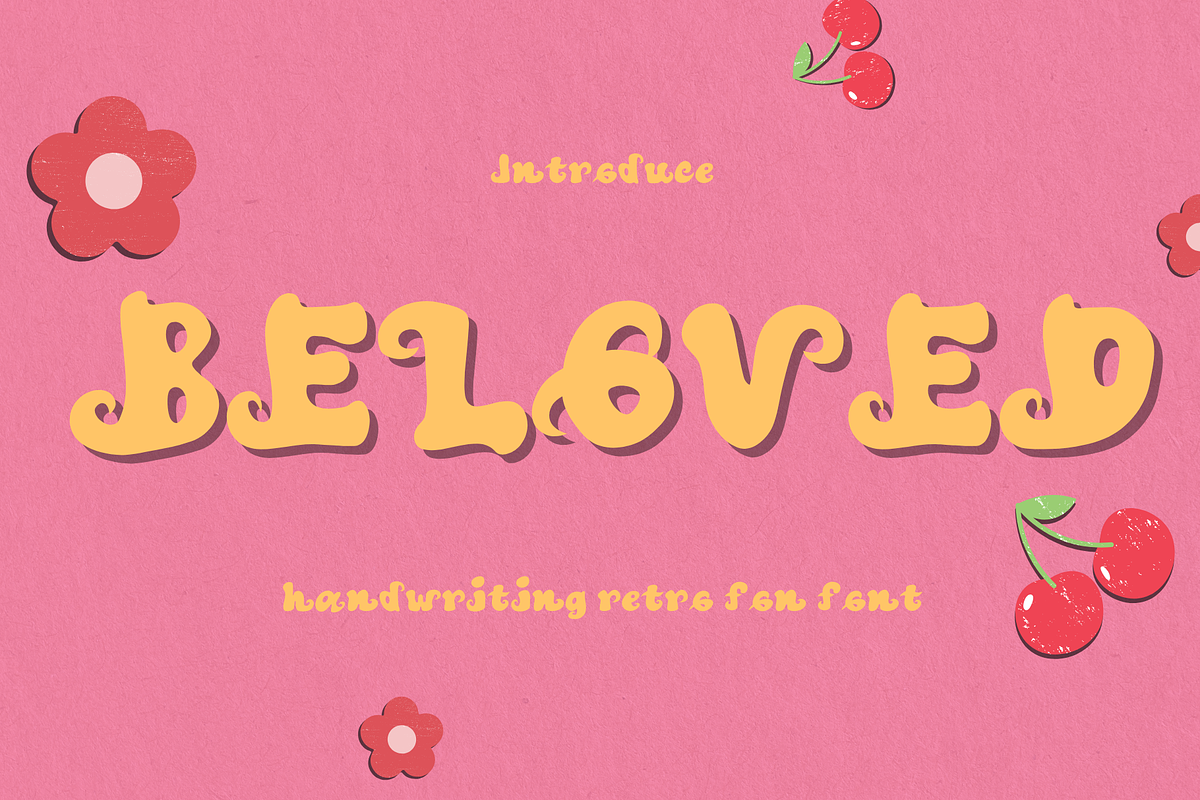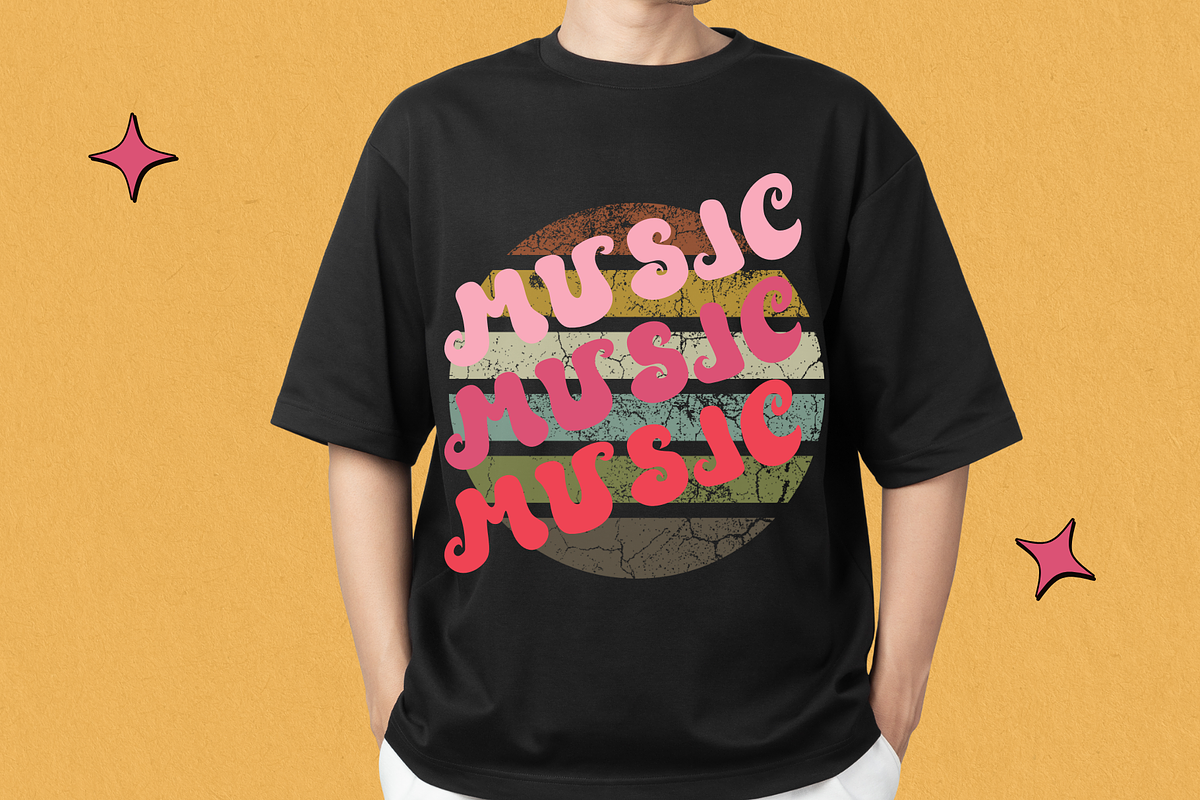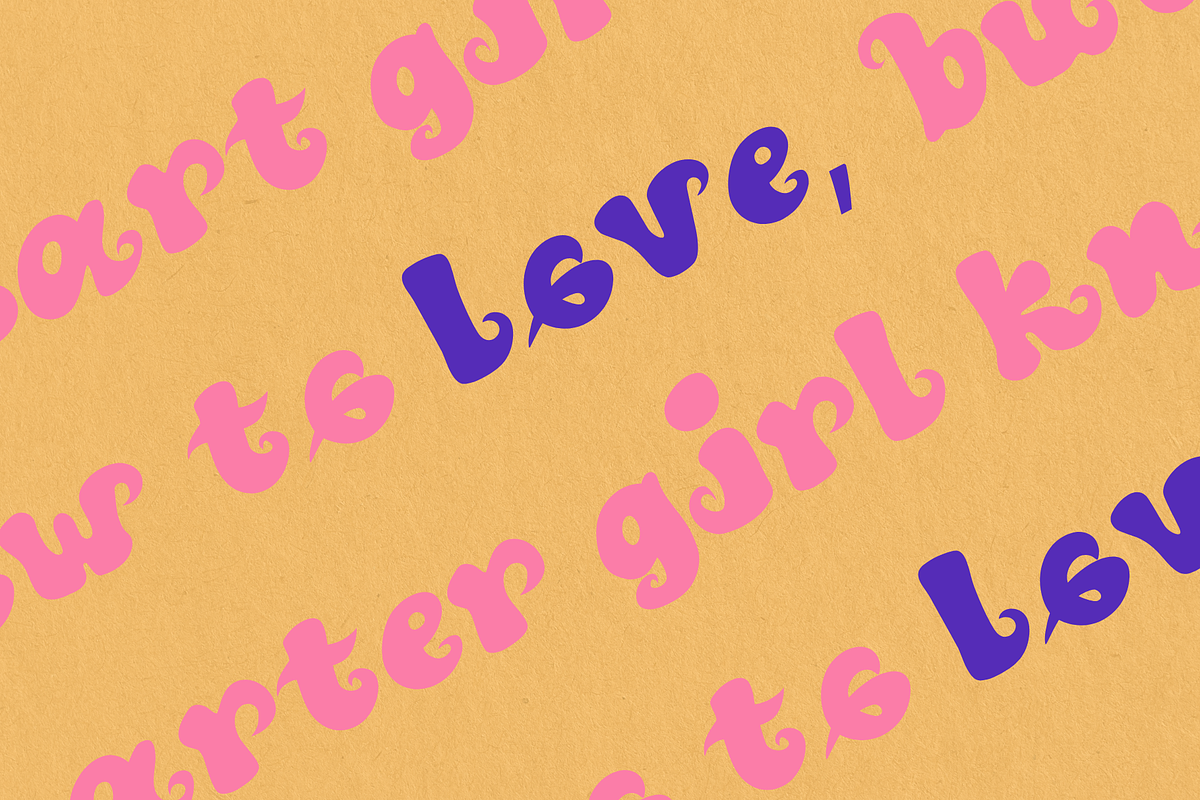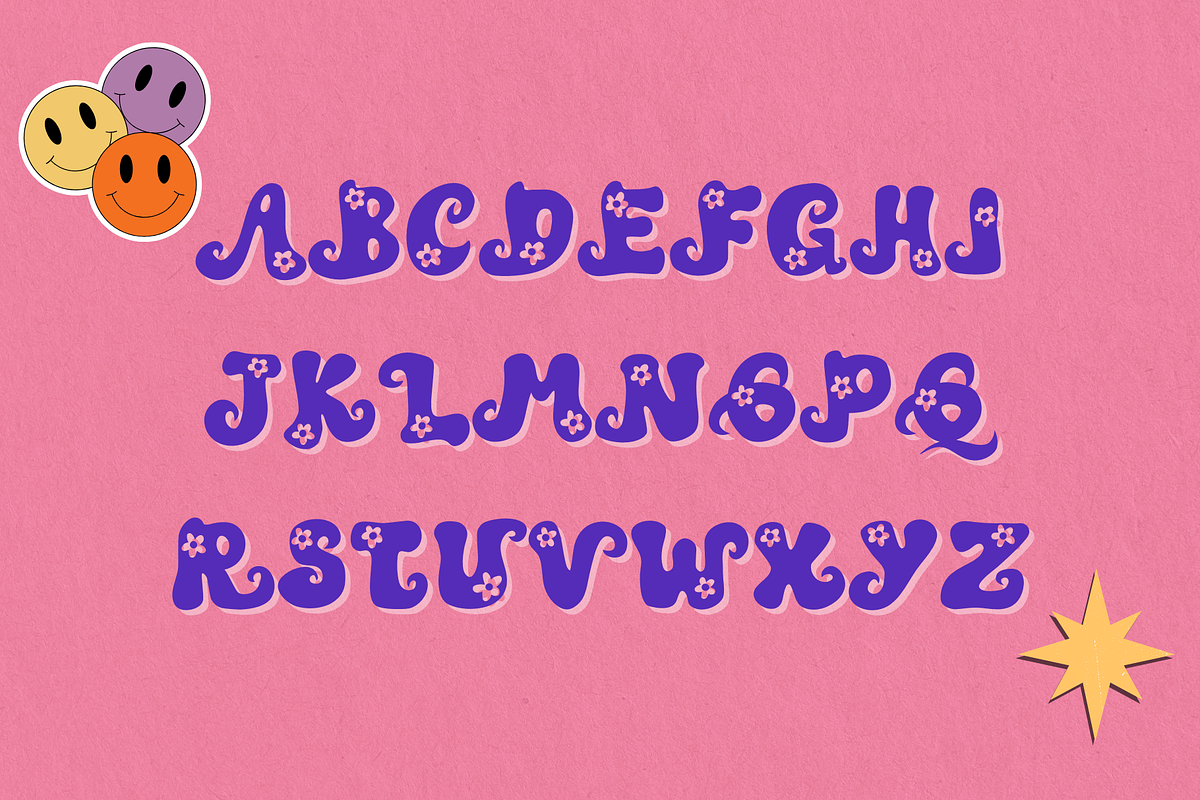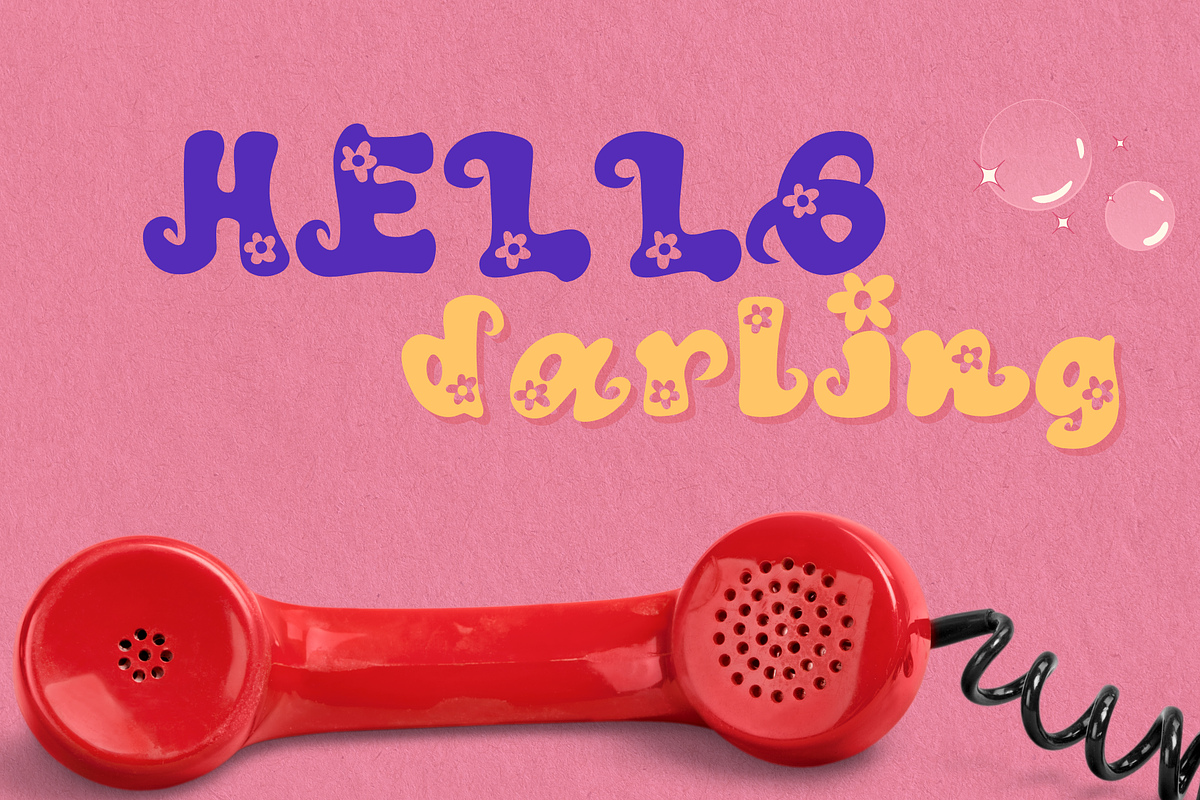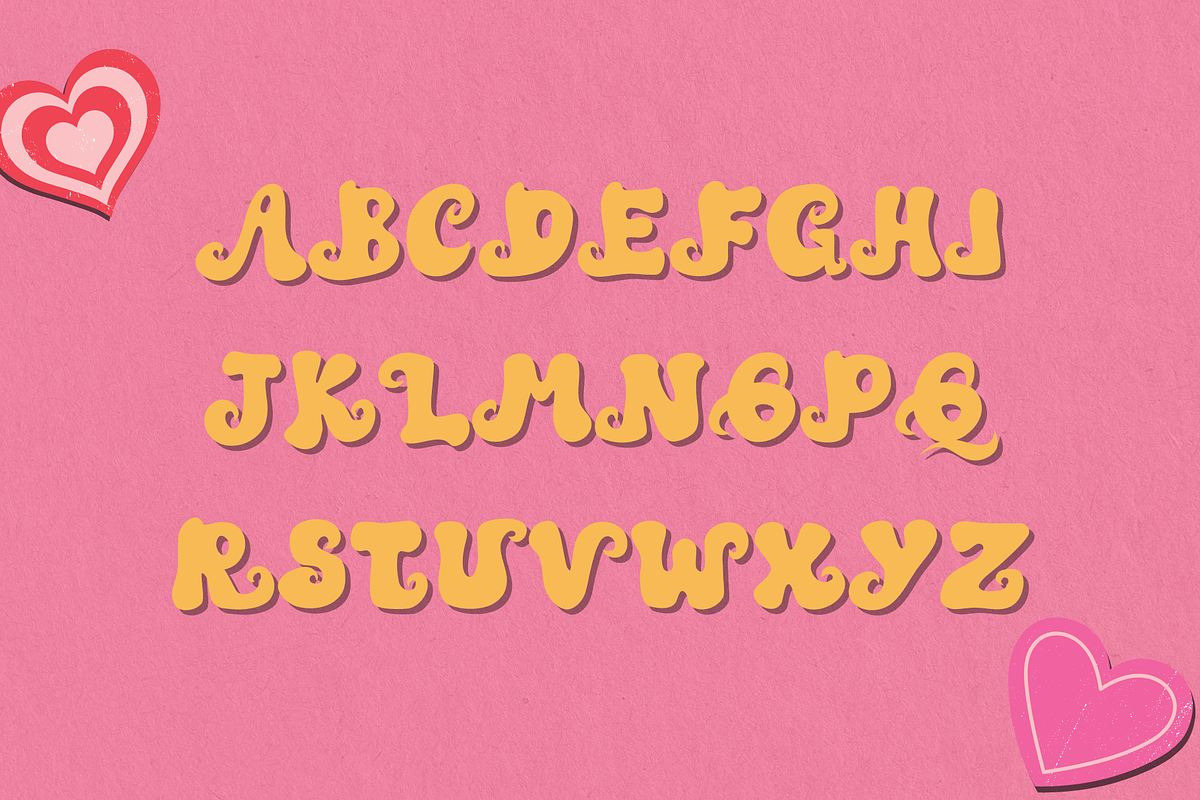
Beloved retro font
"Beloved retro fonts with a cool style and flowing letters will undoubtedly add a touch of tenderness and warmth to your design projects! Suitable for a variety of occasions, especially during the season of love or any other time you want to infuse a cool and cute vibe into your designs.